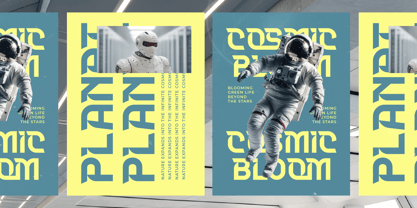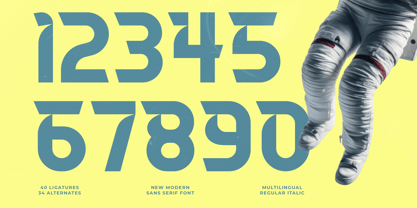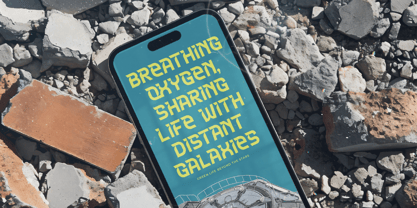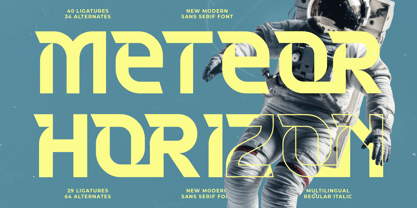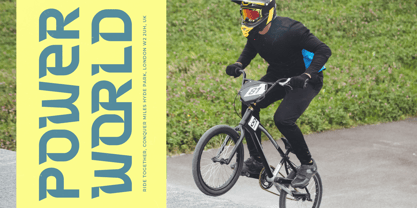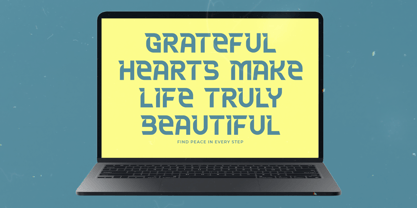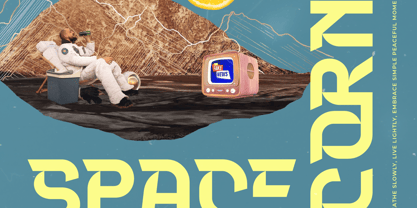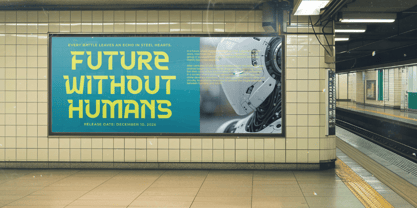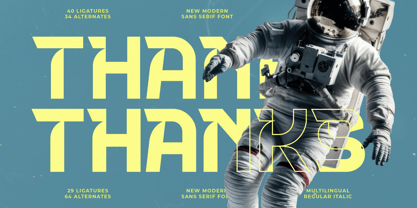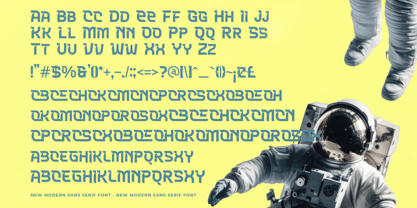
Meteor Horizon
The Meteor Horizon Font Family was designed by Heru Utama Putra and published by Timelesstype Studio. Meteor Horizon contains 2 styles and family package options. More about this family
Meteor Horizon - Modern Sans Serif Font , from Timelesstype , Suitable for any projects such as: logos, branding projects, homeware designs, product packaging, mugs, quotes, posters, shopping bags, t-shirts, book covers, name card, invitation cards, greeting cards, label, photography, watermark, special events, and all your other luxury and beautiful projects that need a Luxury Serif taste.